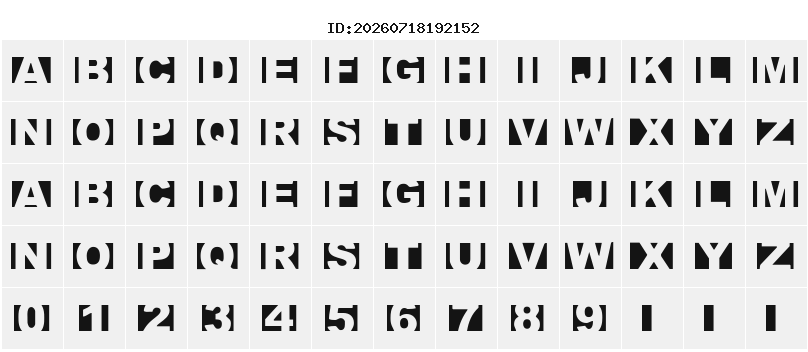
Crimescene Afterimage Preview
• Font Name: Crimescene Afterimage
• Font Style: Crimescene Afterimage
• Full Font Name: Crimescene Afterimage
• Version: named by Joanne Quinn & Deb Dunbar
• PostScript Name: CrimesceneAfterimage
• Character Count: 72
About Crimescene Afterimage.ttf
Crimescene Afterimage.ttf is a modern, elegant sans-serif font designed for ultimate readability and visual harmony. Perfect for branding, headlines, web design, and print materials.